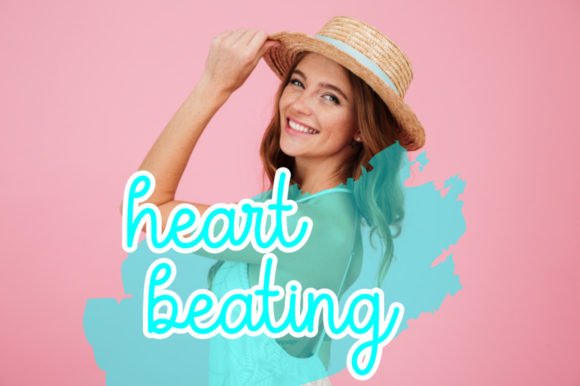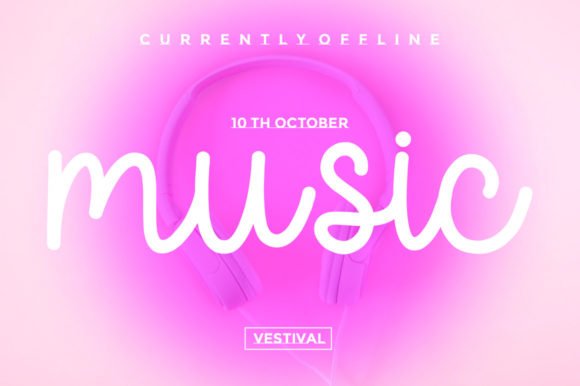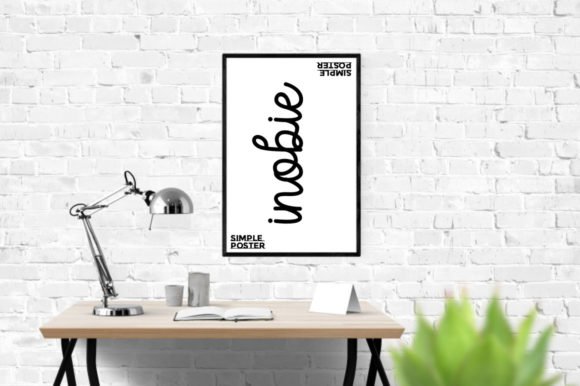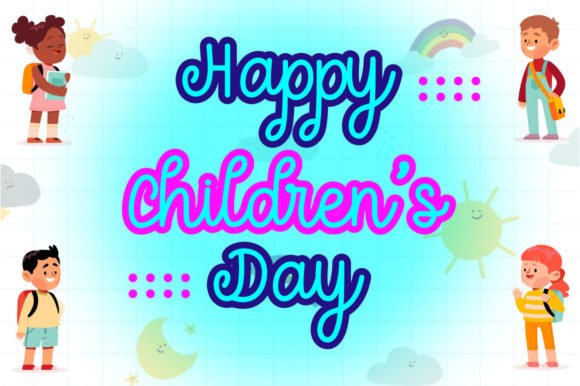
Heartbeat is a playful and fun handwritten font that is ready to add some life to your dainty projects! Use it for magazines, storybook covers, marketing materials, name tags, or more! Add this lovely freebie to your creations and take your designs to the next level!